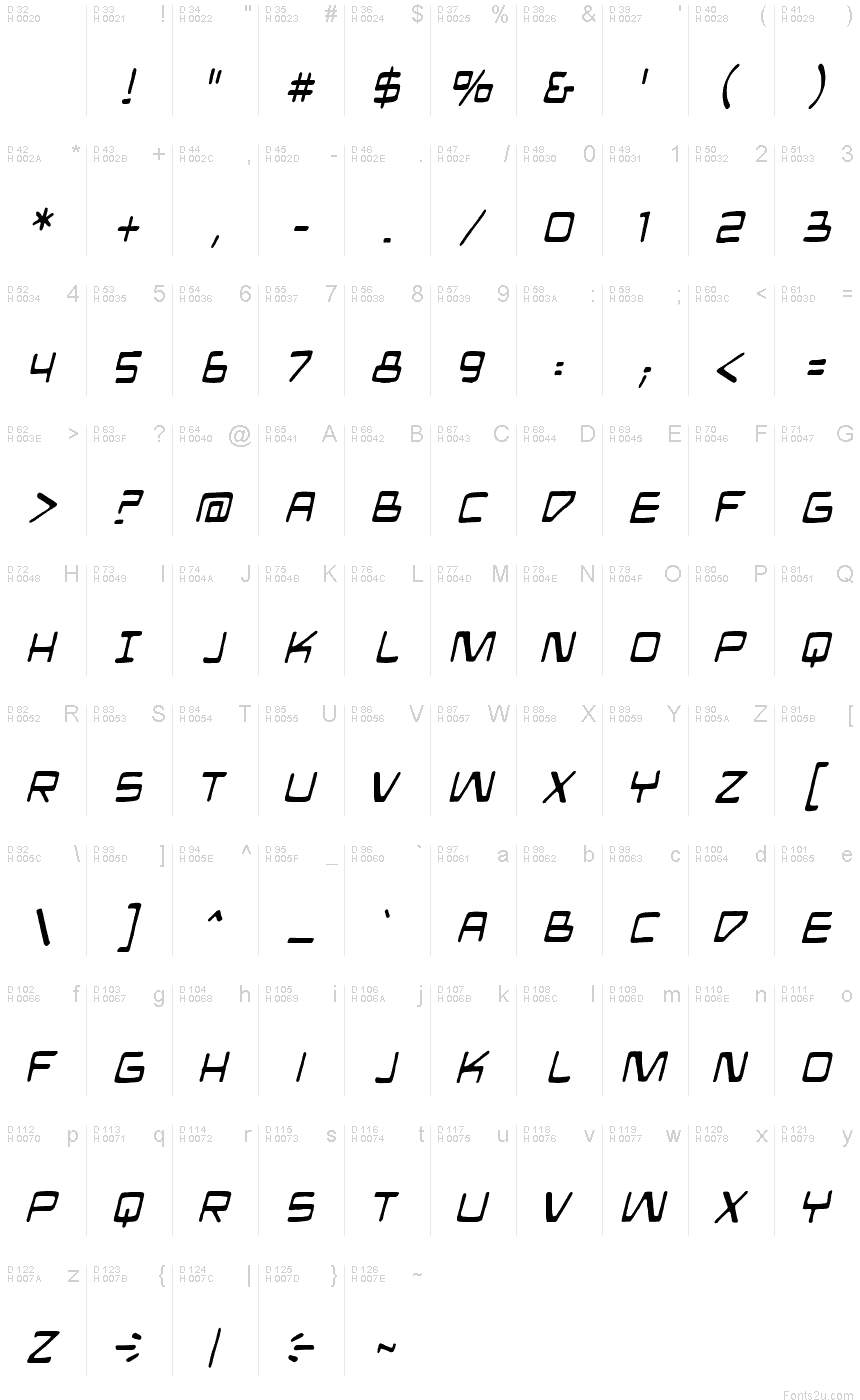
Mandroid BB Italic, created by Nate Piekos, is a free futuristic comic display font with a hand-drawn edge. Its tall, forward-leaning letters combine rounded corners, uneven strokes, and squared curves reminiscent of animated space adventures. The loose drawing keeps it lively.
Game studios and comic publishers can use it for covers, title cards, and promotional graphics about robots, racing, or space. It is strongest in entertainment branding, where the slanted forms turn a name into a compact sci-fi insignia.